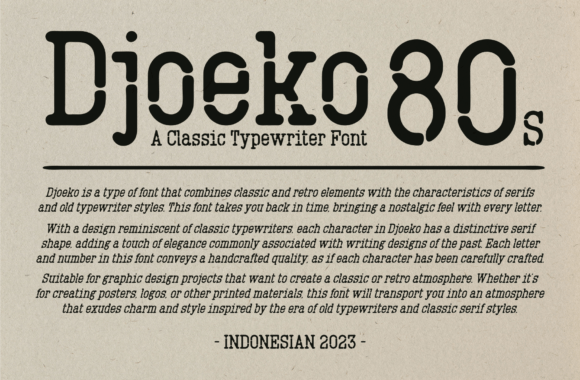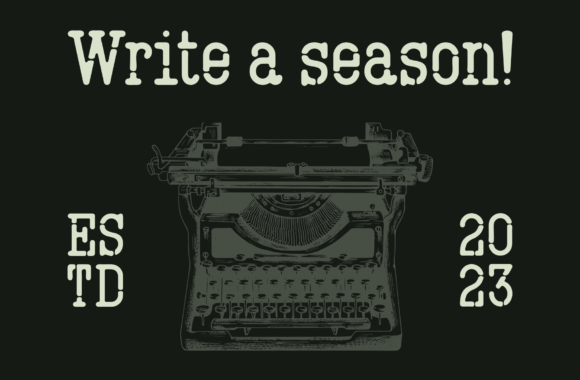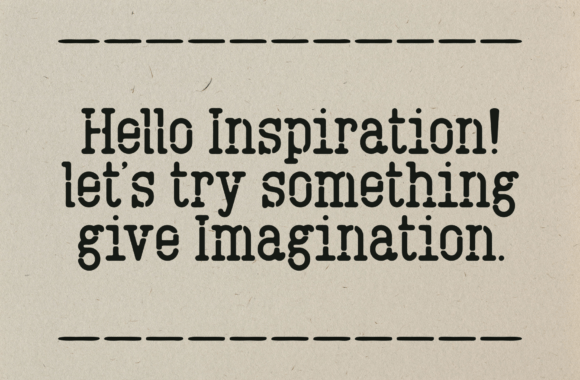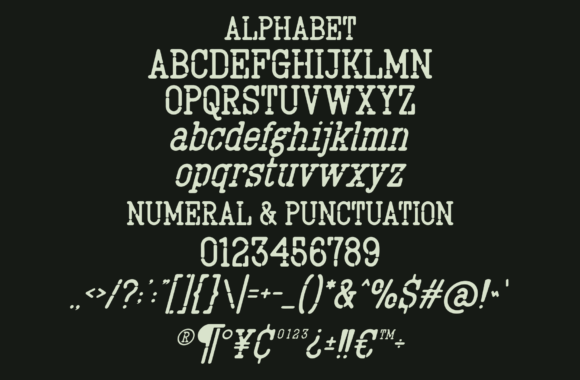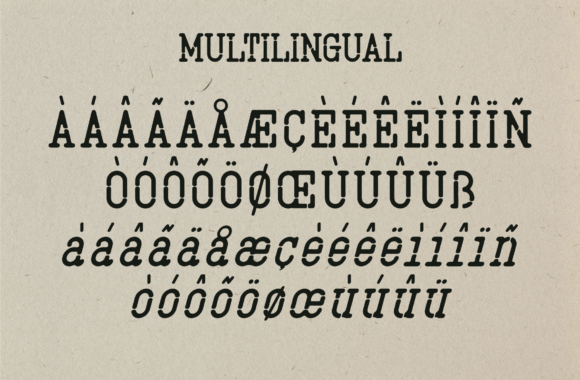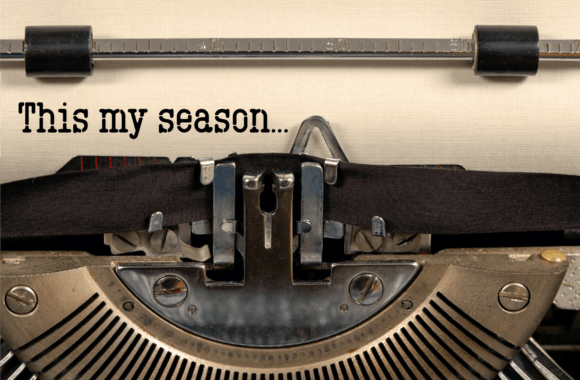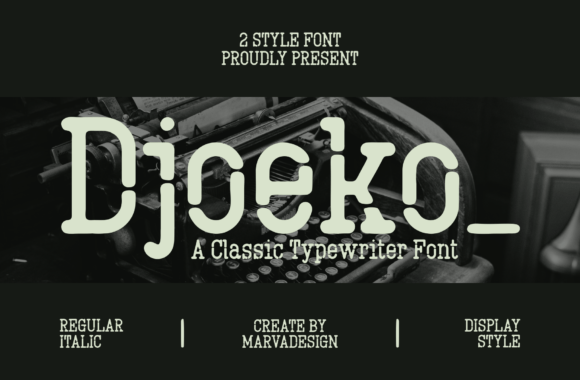
Djoeko Font: A Timeless Typewriter-Inspired Font for Your Creative Projects
Are you looking for a font that adds a touch of nostalgia and vintage charm to your designs? Look no further than Djoeko Font, a classic typeface inspired by the iconic typewriters of the past. With its timeless look and distinct lettering style, Djoeko is perfect for designers, crafters, and writers who want to give their words a unique and retro feel.
The Inspiration Behind Djoeko Font
Djoeko Font is a loving tribute to the old typewriters that were once a staple of writing and creativity. The font’s creator was inspired by the classic letters and typographic style of these vintage machines, which were known for their distinctive look and feel. With Djoeko, you can bring a piece of that nostalgic charm to your designs, whether you’re working on a logo, a poster, or a website.
Key Features of Djoeko Font
So, what makes Djoeko Font so special? Here are some of its key features:
- Timeless look: Djoeko Font has a classic, timeless look that’s reminiscent of old typewriters. Its letters are designed to evoke a sense of nostalgia and vintage charm.
- Distinct typewriter charm: Each letter in Djoeko Font has a distinct typewriter-like feel, with subtle imperfections and quirks that make it stand out.
- Classic letters: The font features classic letters that are perfect for giving your text a retro feel. From the elegant curves of the “C” and “S” to the sturdy lines of the “E” and “T”, every letter is designed to evoke a sense of nostalgia.
- Versatile: Djoeko Font is versatile and can be used for a wide range of design projects, from logos and posters to websites and social media graphics.
Uses for Djoeko Font
Djoeko Font is perfect for designers, crafters, and writers who want to add a touch of vintage charm to their projects. Here are some ideas for using Djoeko Font:
- Logo design: Use Djoeko Font to create a logo that stands out with a touch of nostalgia. Perfect for vintage-inspired brands, coffee shops, and antique stores.
- Posters and flyers: Add a retro touch to your posters and flyers with Djoeko Font. Ideal for promoting events, concerts, and festivals.
- Web design: Use Djoeko Font to create a unique and memorable website that stands out from the crowd. Perfect for blogs, portfolios, and e-commerce sites.
- Social media graphics: Add a touch of vintage charm to your social media graphics with Djoeko Font. Ideal for creating engaging and shareable content.
- Crafting and scrapbooking: Djoeko Font is also perfect for crafters and scrapbookers who want to add a personal touch to their projects.
Tips for Using Djoeko Font
Here are some tips for getting the most out of Djoeko Font:
- Experiment with sizes: Djoeko Font looks great in a variety of sizes, from large headings to smaller body text. Experiment with different sizes to find the perfect fit for your project.
- Pair with modern fonts: Djoeko Font pairs well with modern fonts, creating a nice contrast between old and new. Try pairing it with a clean sans-serif font for a striking effect.
- Use in combination with images: Djoeko Font looks great in combination with vintage images, illustrations, and textures. Try using it to add a caption to a vintage photo or illustration.
Djoeko Font is a unique and versatile typeface that’s perfect for designers, crafters, and writers who want to add a touch of vintage charm to their projects. With its timeless look and distinct typewriter-like feel, Djoeko Font is sure to stand out in any design. Whether you’re working on a logo, poster, website, or social media graphic, Djoeko Font is a great choice for anyone looking to evoke a sense of nostalgia and retro charm.